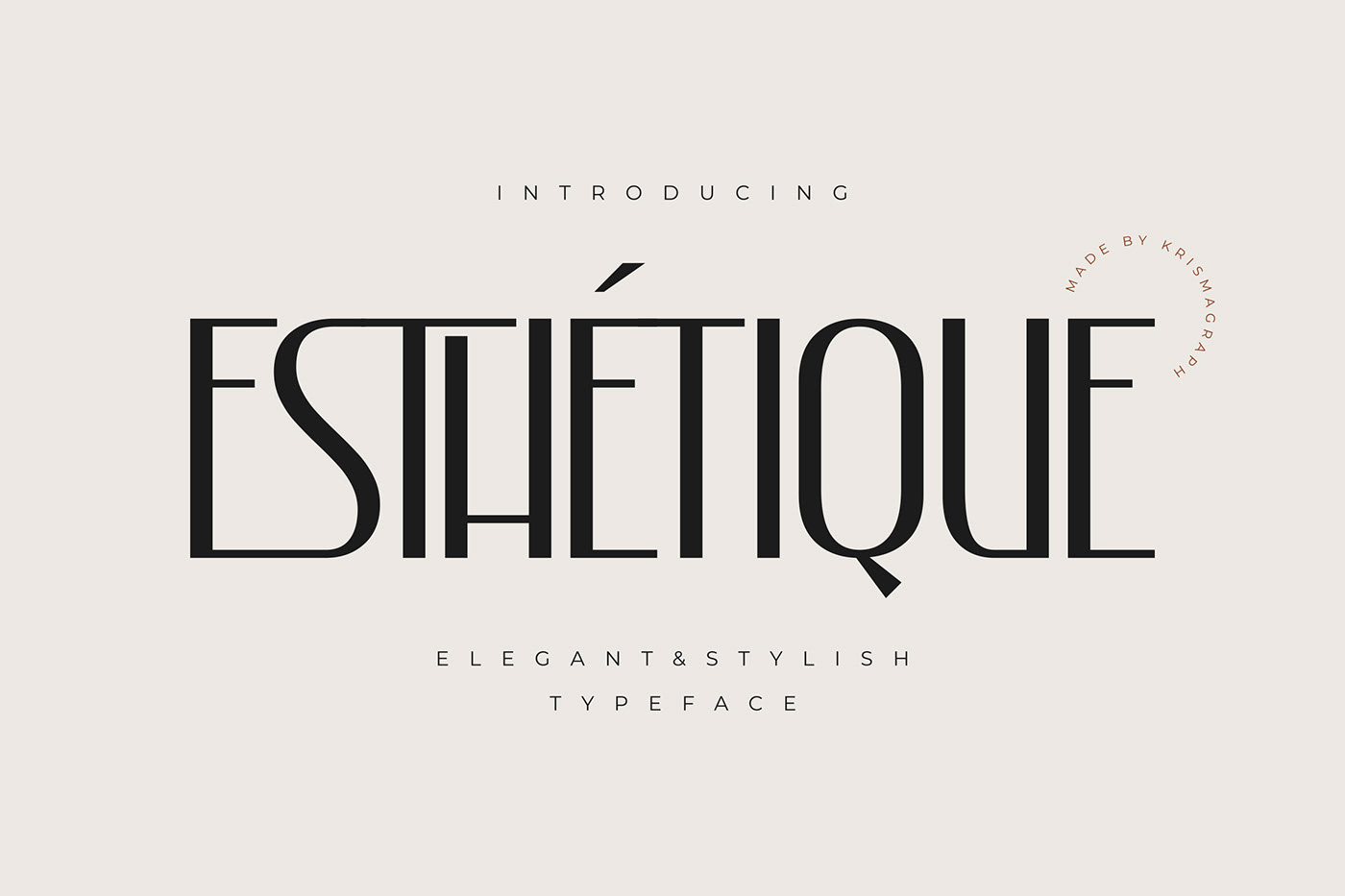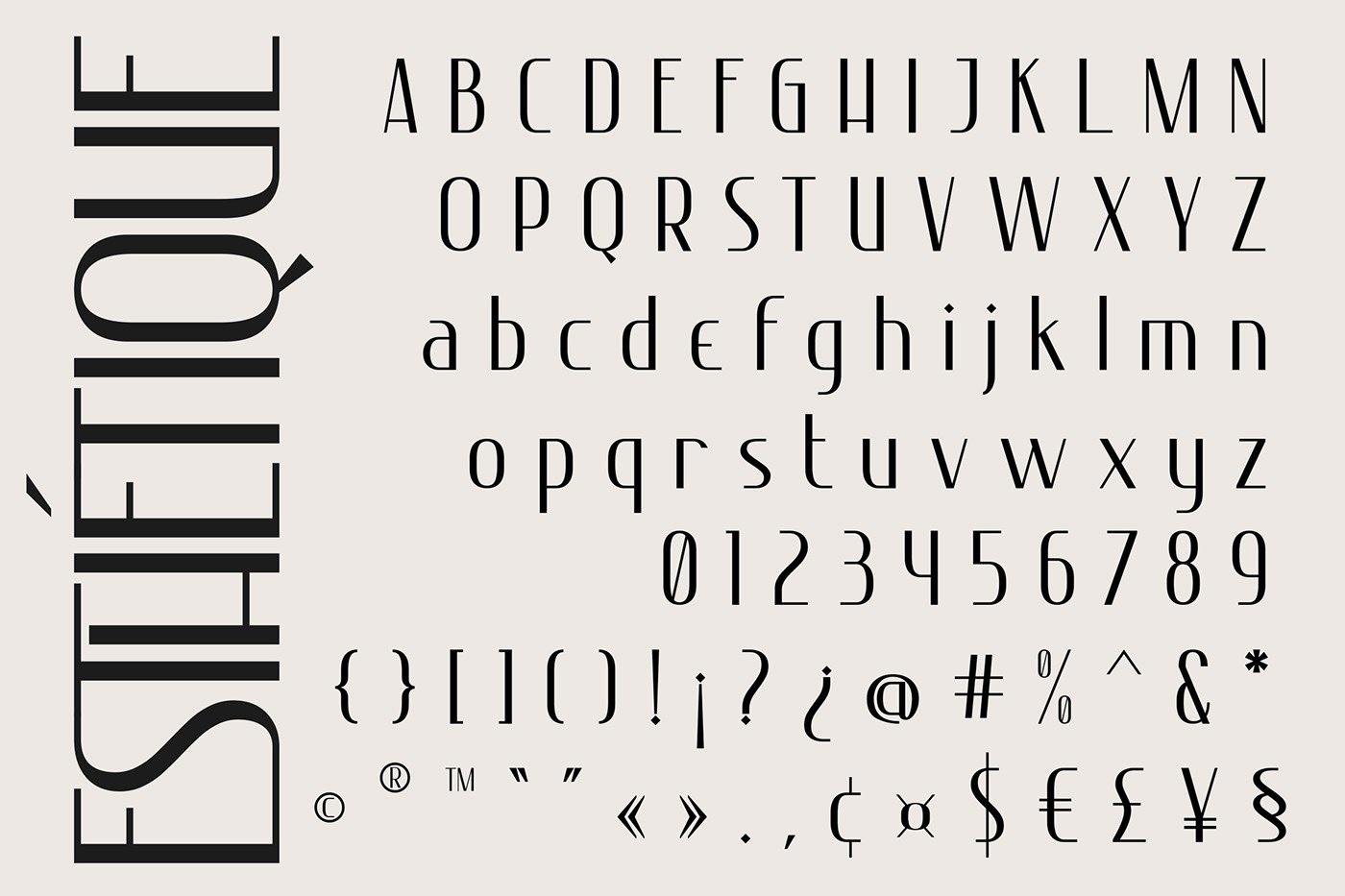
Introducing Esthetique, an elegant & stylish font created by Ratna Krismawati.
This tall slightly condensed font includes lots of great features like extensive ligatures, making it a great choice for creating refined logos, editorial designs, social media content & much more.